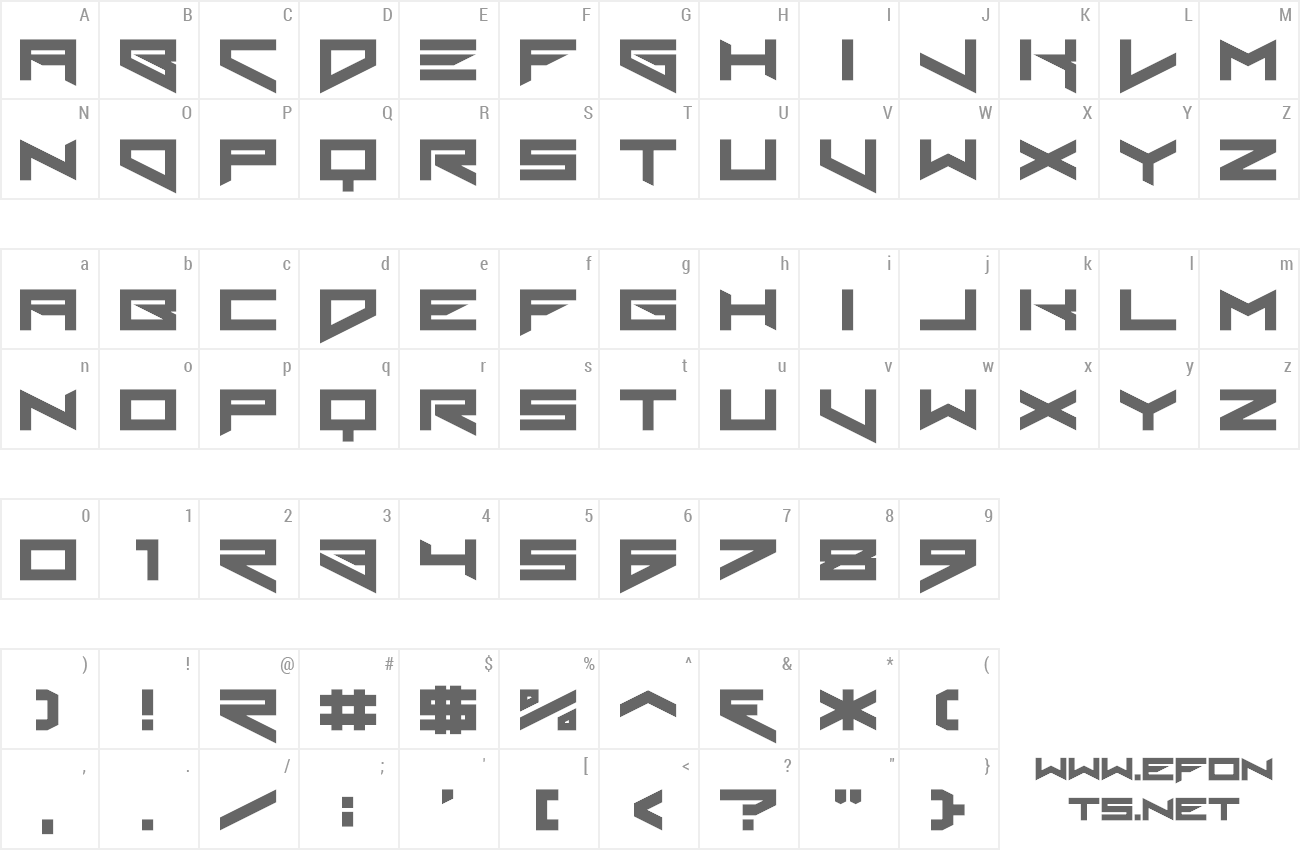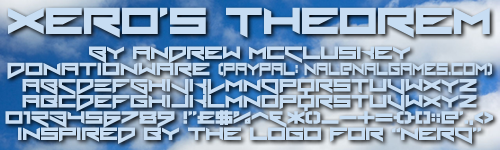
Preview and download Xero's Theorem Font. Created by NALGames in Techno Various styles with Donationware license.
A stylistic music-based font inspired by the logo for dubstep artist Nero. This font can be used completely free for anything and everything non-commercial. If you are to make money from whatever you use this font for (including from ad-revenue/other indirect sources), please donate any sum of money over PayPal to Andrew McCluskey (nal@nalgames.com). This can also be done directly through DaFont.com, see the link above. If you're using it freely and do wish to donate, I highly appreciate it, but it's not necessary. Email nal@nalgames.com if you have any inquiries about the licensing, donations, or also if you do get use out of the font and feel like showing me where you've used it - again, this is not obligatory, but I always appreciate and enjoy this kind of support! Thank-you for downloading this font if you do, and I hope you find a use for it! |